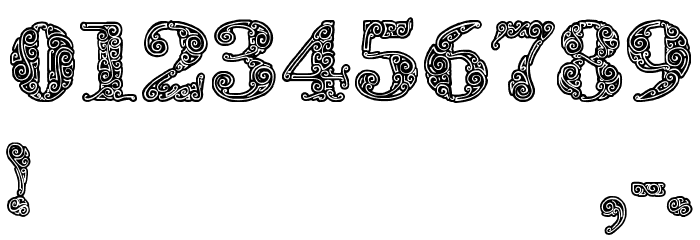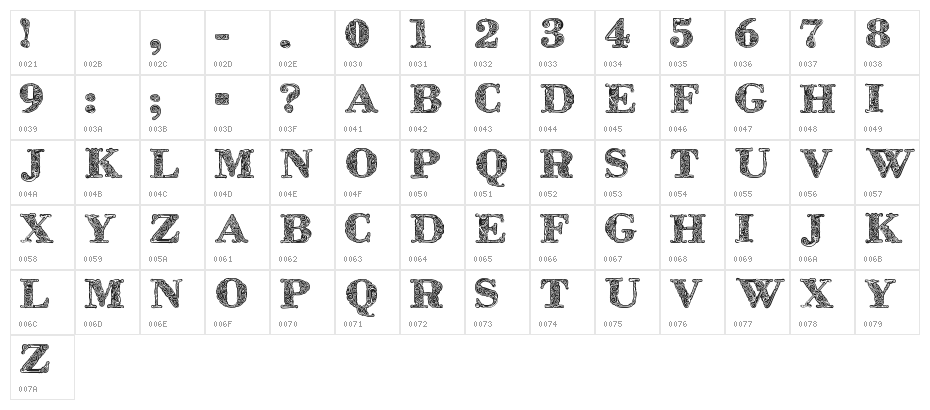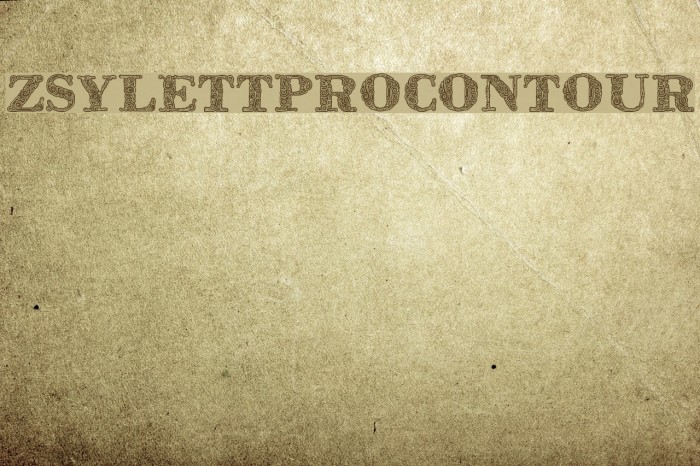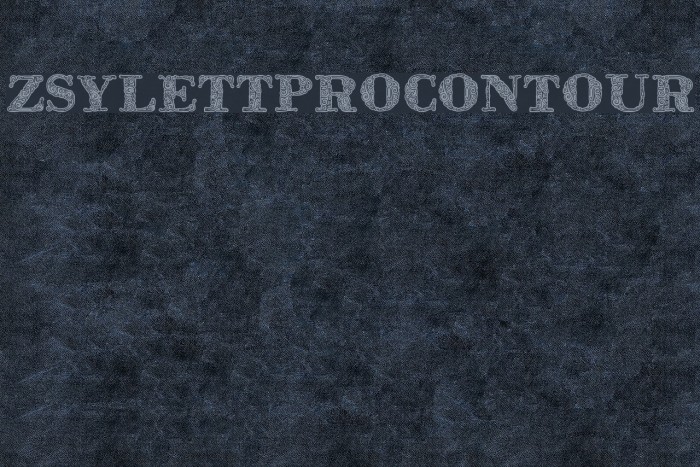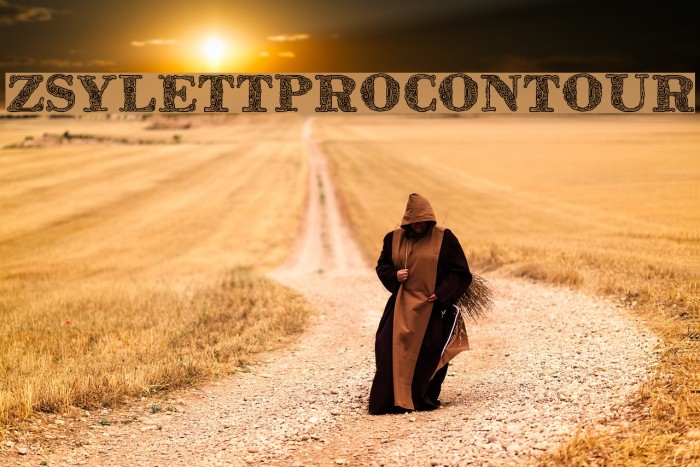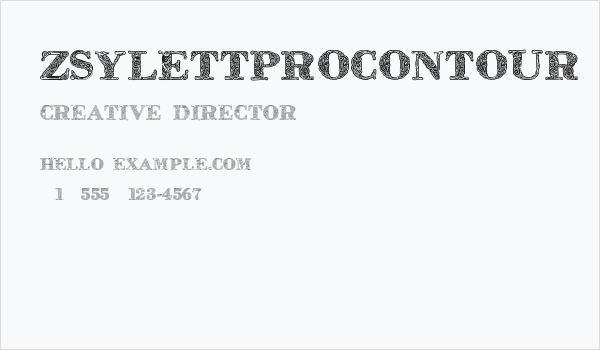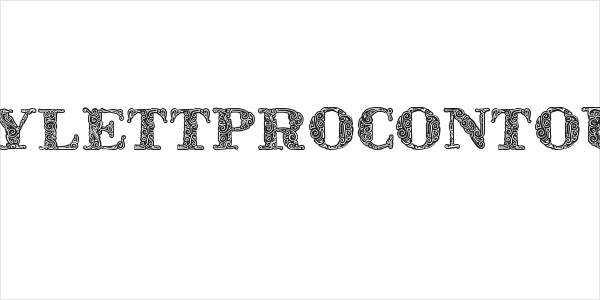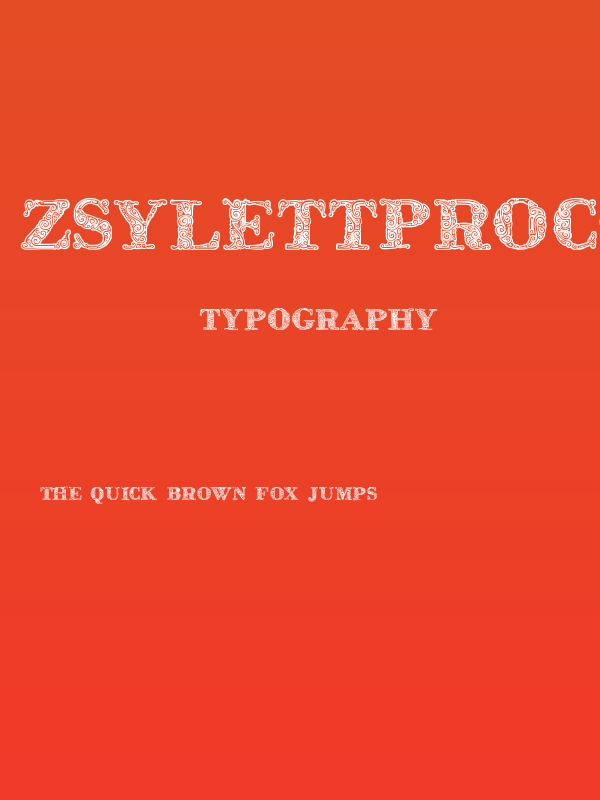
ZsylettProContour Font
This font features an ornate and decorative style with intricate patterns filling each character. The uppercase and lowercase letters, as well as the numbers, are embellished with swirling designs that give a sense of elegance and complexity. The characters are bold and have a strong presence, making them suitable for attention-grabbing designs. The detailed patterns within each letter create a unique texture, adding depth and interest to the text. This font is ideal for projects that require a touch of sophistication and artistic flair.
| Use Case | Headlines, Logos, Artistic projects |
| Proposed Projects | Perfect for wedding invitations, luxury branding, artistic posters, and decorative headlines. |